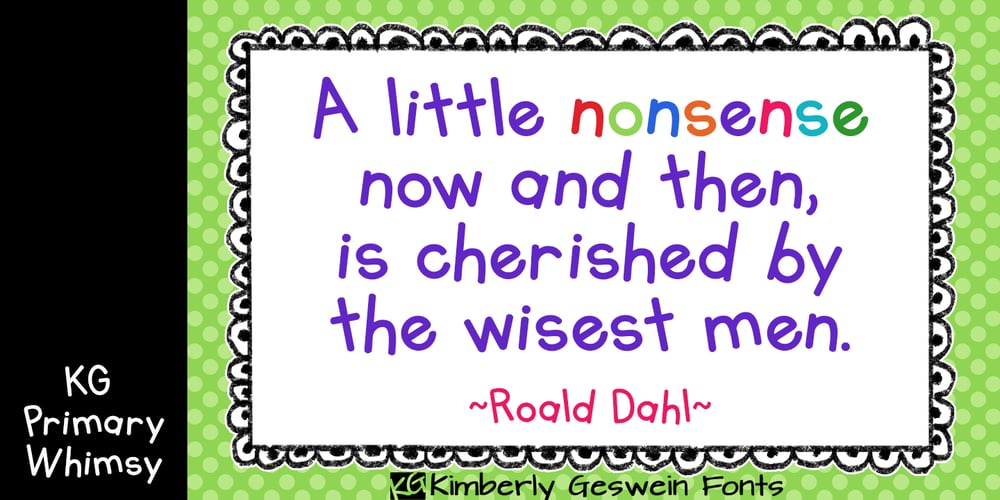
KG Primary Whimsy
KG Primary Whimsy font
KG Primary Whimsy Font Family was designed by Kimberly Geswein and published by Kimberly Geswein. KG Primary Whimsy contains 1 styles and family package options. This quirky font is a playful take on my KG Primary Penmanship.